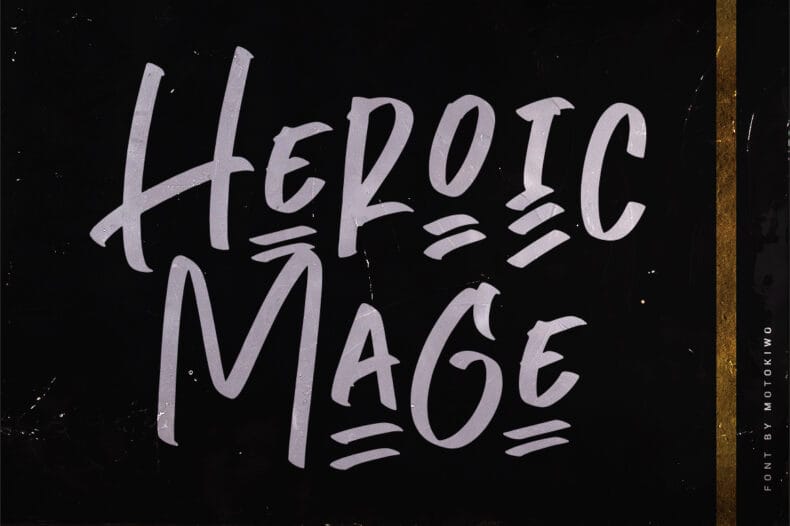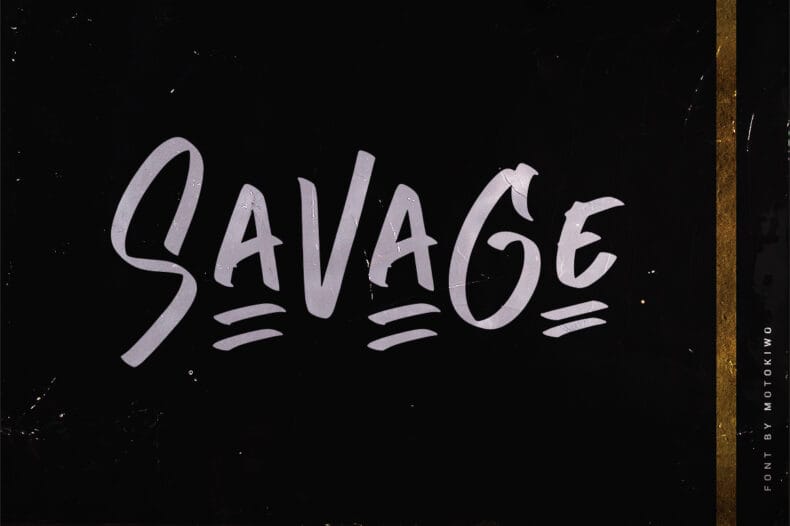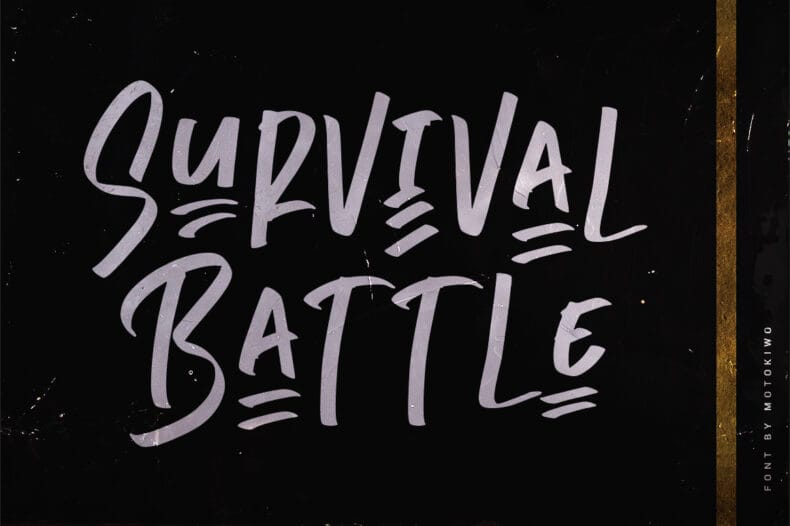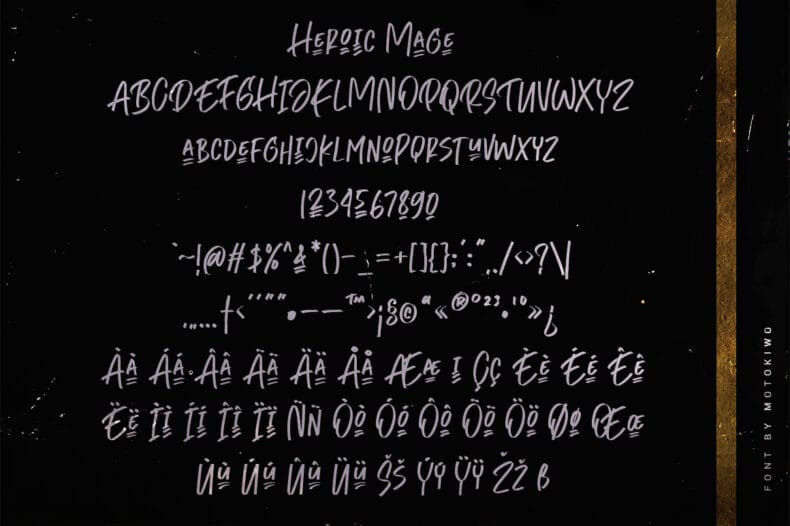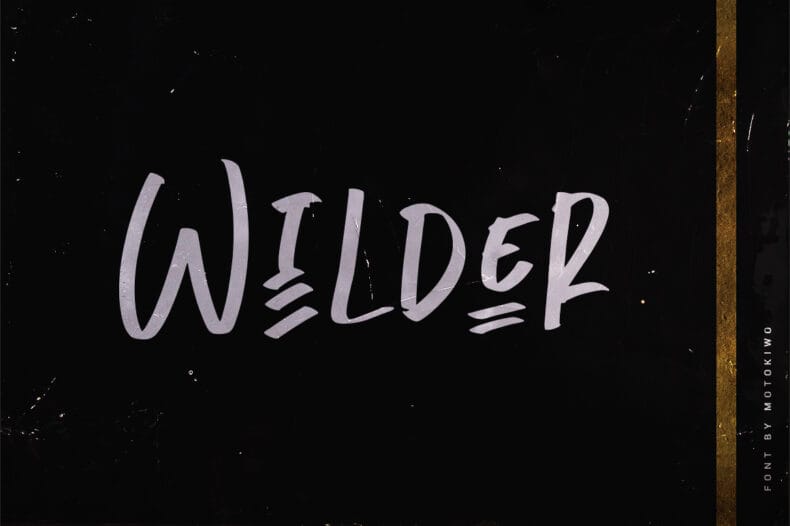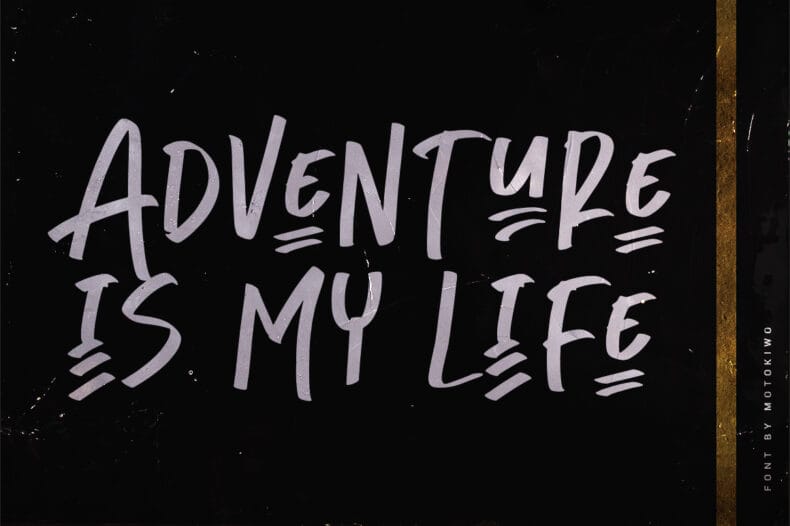
Heroic Mage is an all-caps marker typeface with a natural handwritten feel. Try it for poster headlines, short text overlays, and informal branding concepts.
Heroic Mage offers a marker-written direction for messages that should feel direct and personal. Use it to explore a compact headline, a graphic wordmark, or a short statement over an image.
Keep the main wording concise and test it against the intended background. Supporting information can use a simpler typeface so the handwritten capitals remain the focus of the composition.